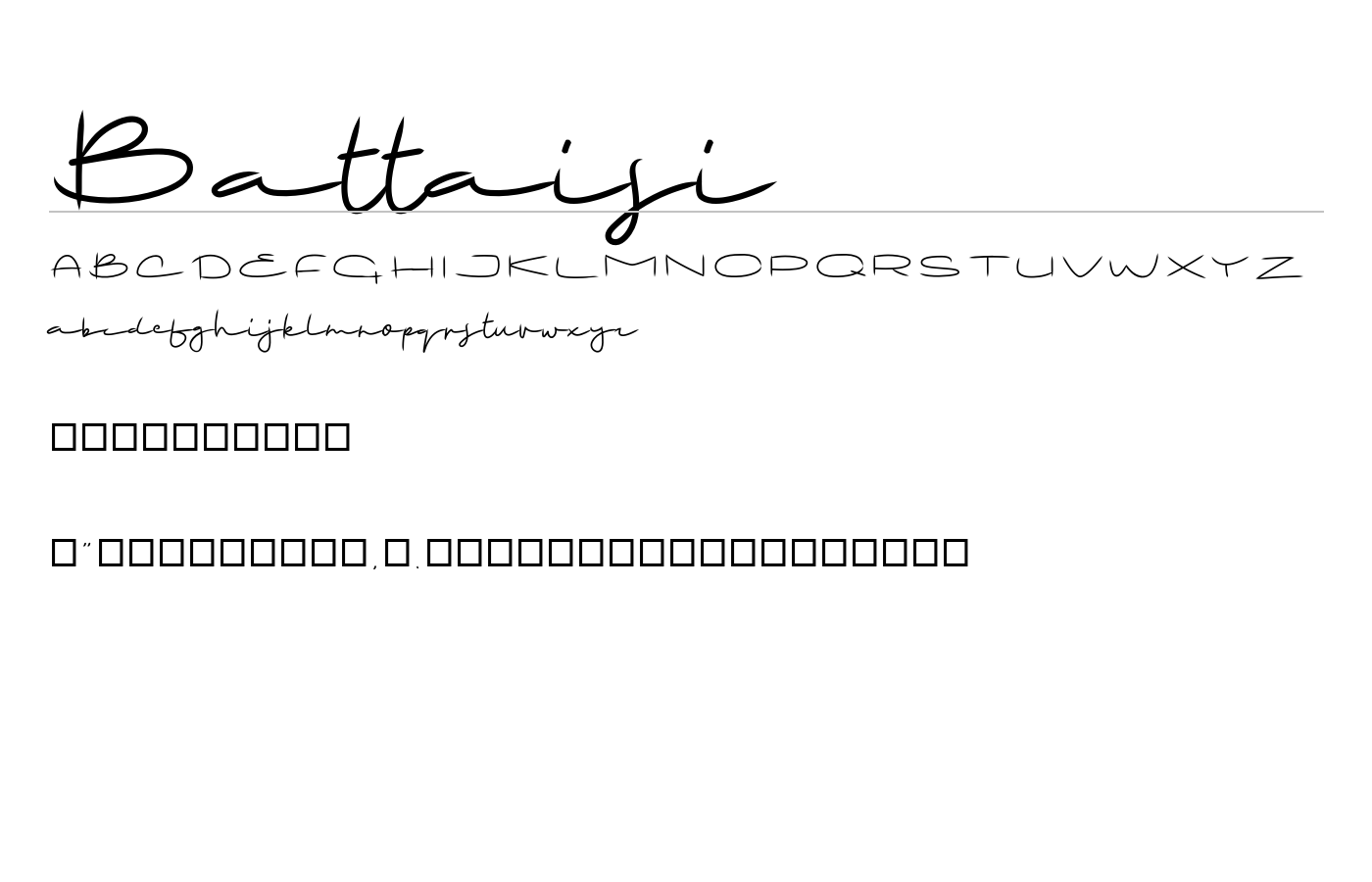
Battaisi is a delicate, script-inspired font with a handwritten feel, featuring thin strokes and elegant, flowing letterforms that convey a personal, artistic touch. Its light weight and graceful curves make it ideal for creative projects, invitations, and branding that aims to express sophistication and individuality. This font shines in designs where a refined, yet approachable style is desired.
Battaisi Font